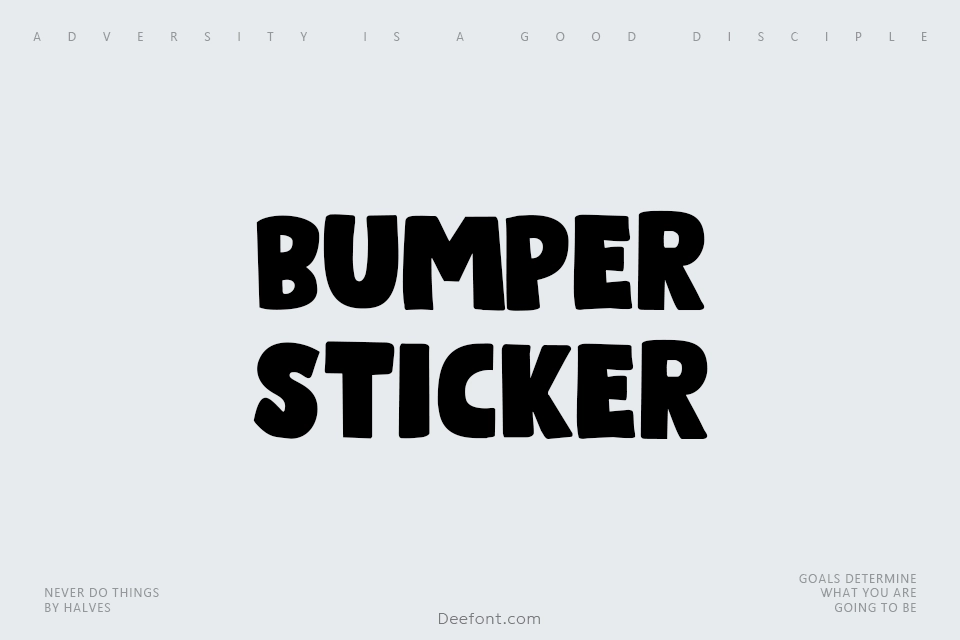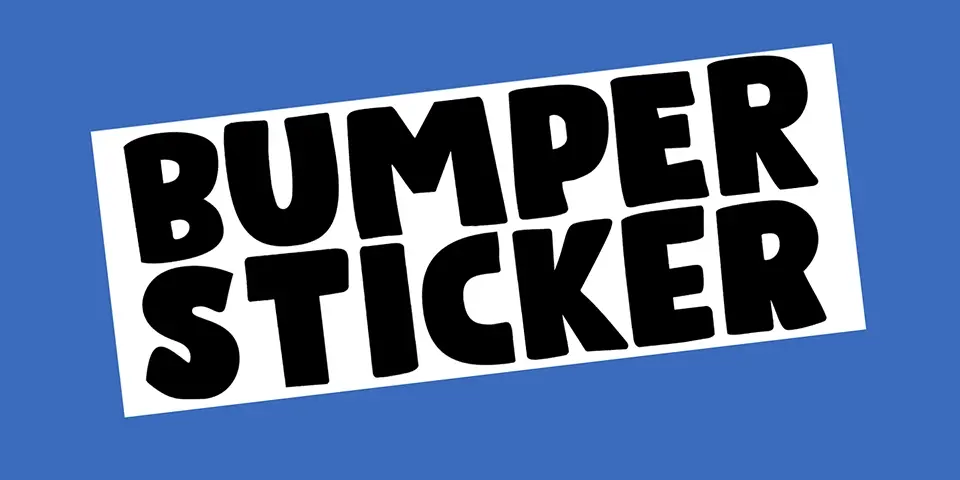
Bumper Sticker Font
Bumper Sticker is a bold, rounded display font with a playful and informal style, featuring thick characters with a slightly uneven baseline that gives them a hand-drawn appearance. Designed by Hanoded, this uncomplicated display font is quite loud and very in-your-face, making it ideal for eye-catching designs that require a touch of personality and flair. Its unique vintage-inspired style with a modern twist makes it perfect for posters, children’s books, playful branding, and retro-themed designs. The font’s substantial weight ensures consistency across all glyphs, offering a nostalgic yet contemporary feel for creative projects.